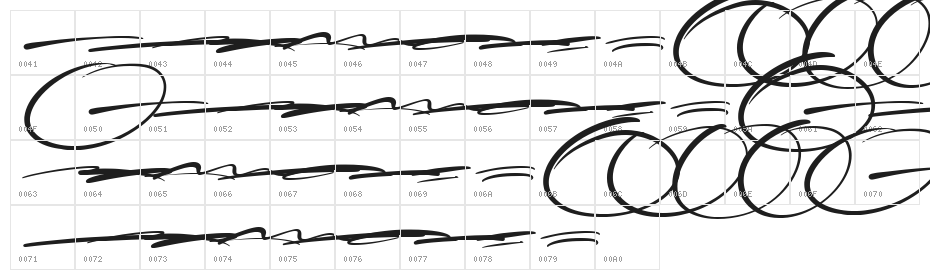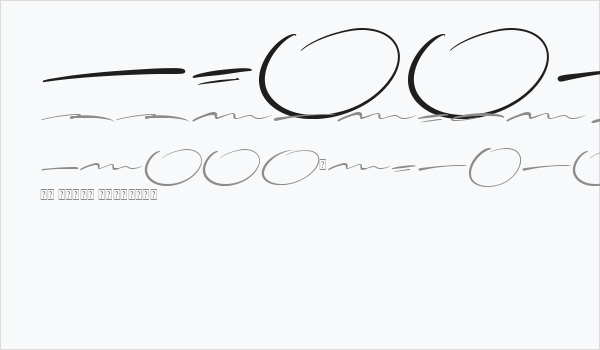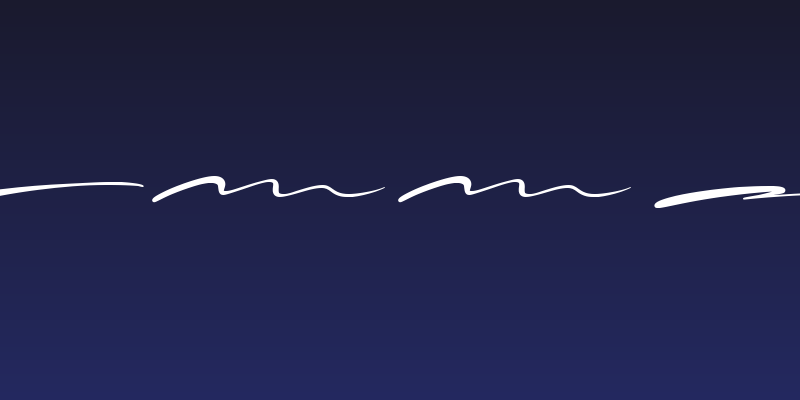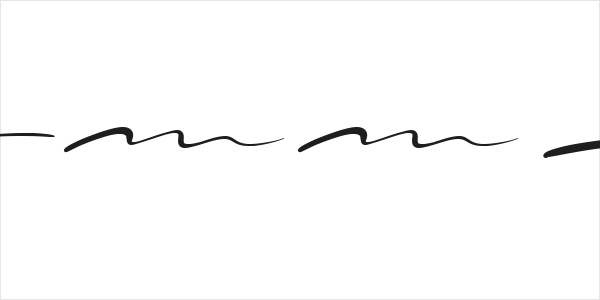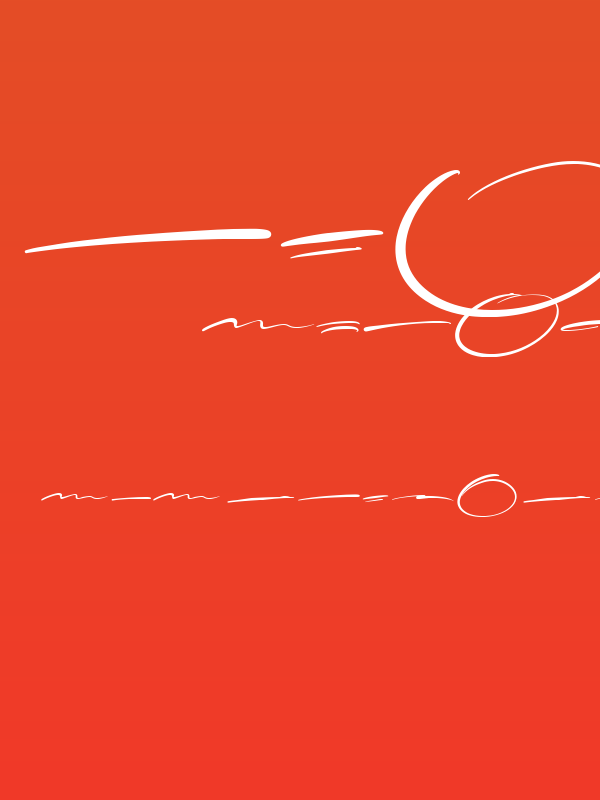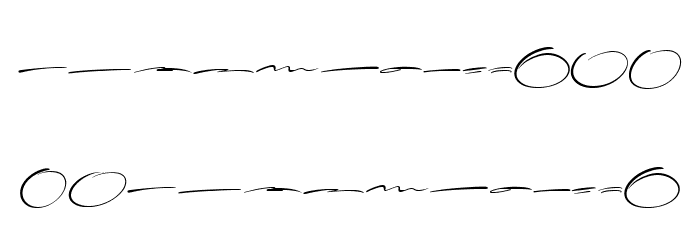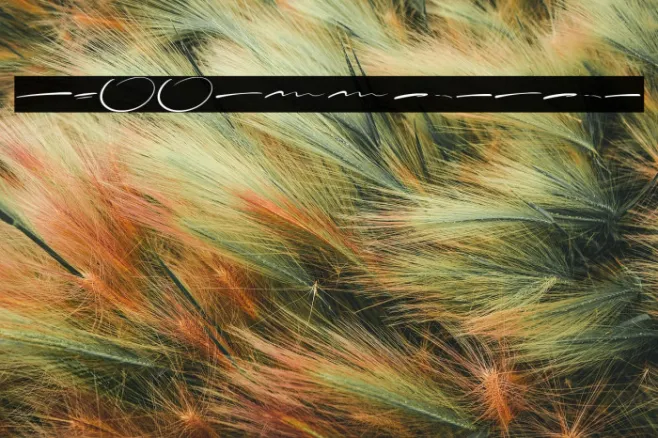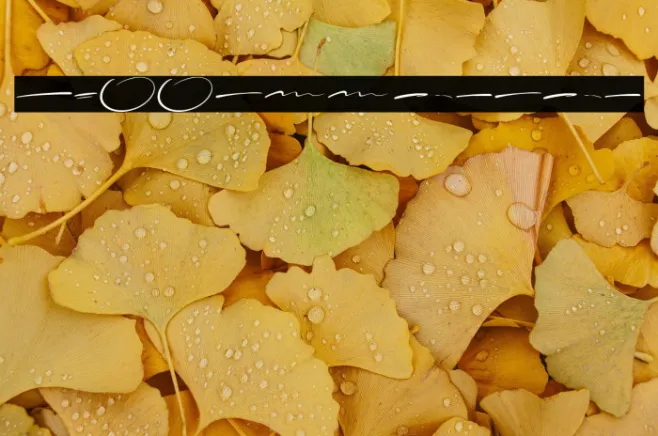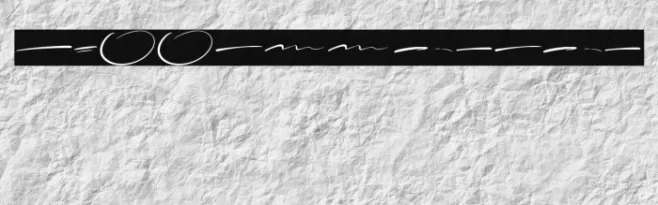
Fillate Swash Font
Fillate Swash Description
This font features an elegant and flowing design, characterized by its swash elements that extend gracefully from each character. The strokes are smooth and continuous, creating a sense of fluidity and movement. The overall appearance is sophisticated and artistic, making it suitable for decorative purposes. The font's unique style is achieved through its elongated and curved lines, which add a touch of flair and creativity. It is ideal for projects that require a touch of elegance and artistic expression.
| Proposed Projects | Ideal for wedding invitations, greeting cards, artistic posters, and branding materials that require a touch of elegance. |